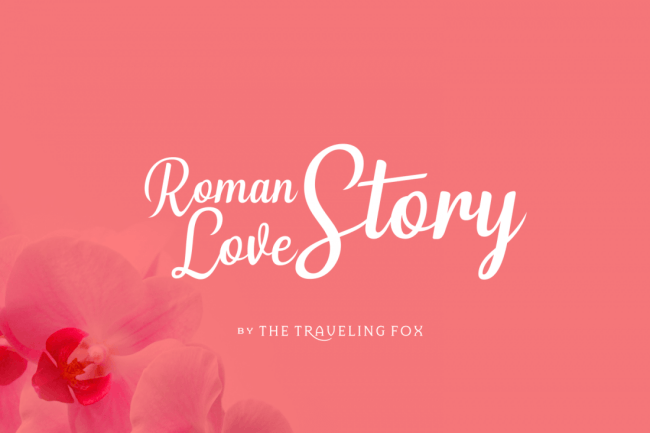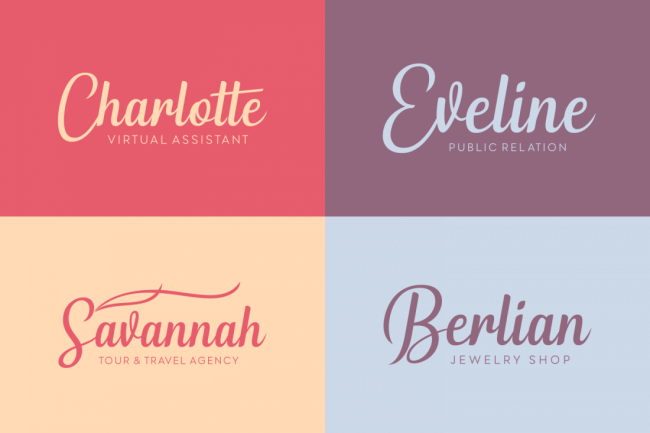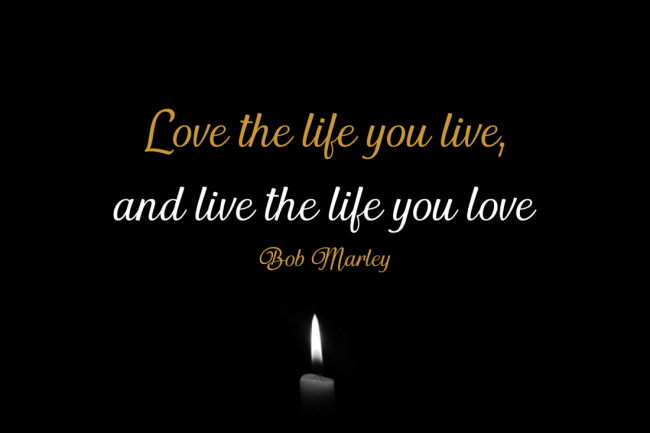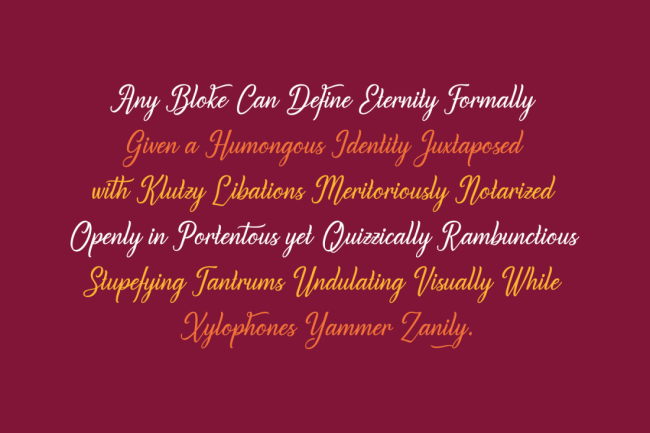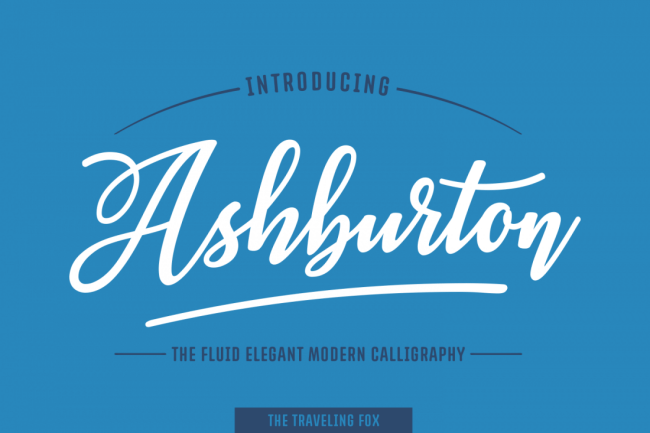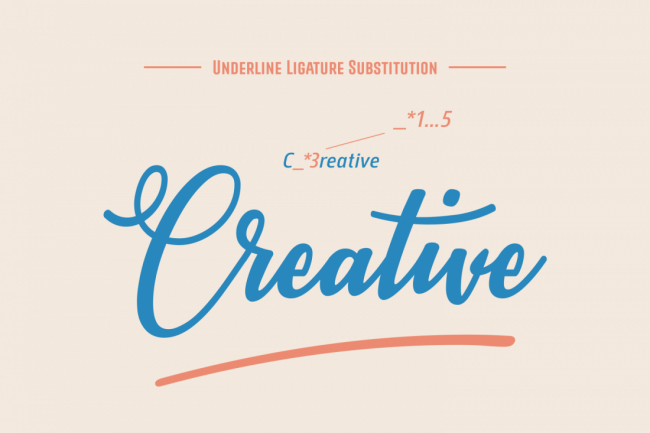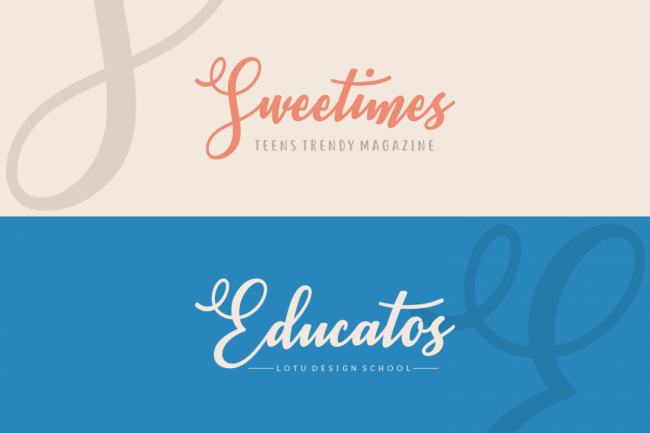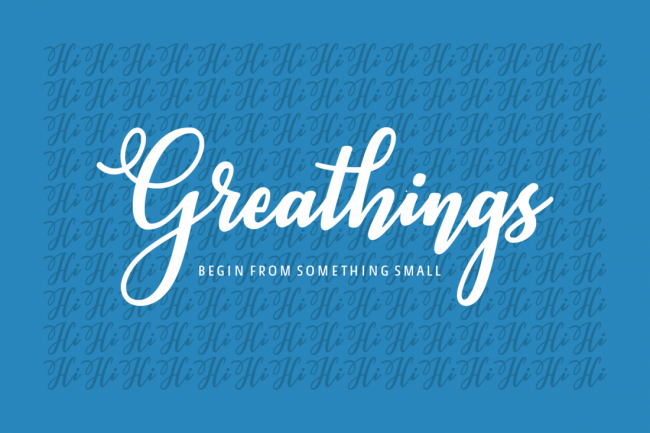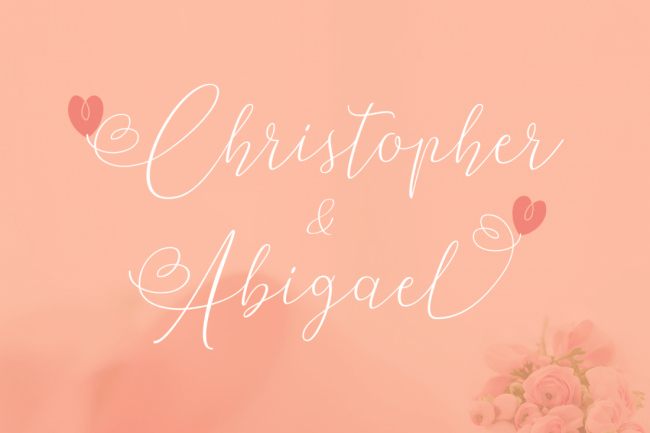
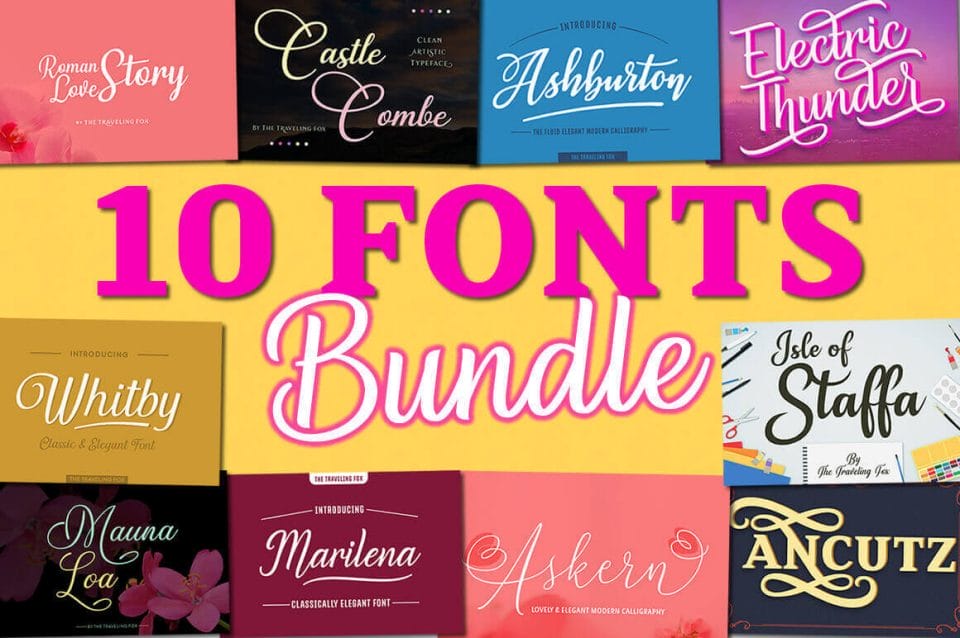
If you’re looking to give your typeface toolbox a boost, you’ve come to the right place. This deal features 10 highly legible PUA encoded fonts. Elegant in nature, these script fonts feature a variety of extra characters to give you some real flexibility in your designs.
- 10 professional script typefaces.
- Classic, elegant styles.
- Create endless varieties – packed with tons of alternate ligatures.
- Great choice for printed projects such as invitations, save-the-date cards, logos, prints, signs, mugs, T-shirts and more.